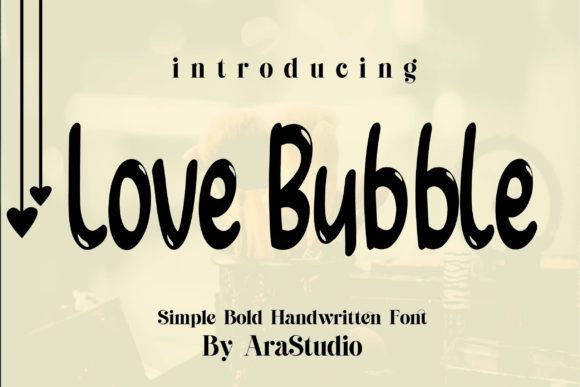
Journey into the Whimsical Realm of Love Bubble Font: A Script Symphony for Your Creative Expressions
In a realm where artistry dances with elegance, discover Love Bubble Font - a script font born from the union of charm and sophistication. This modern handwritten masterpiece is an enchanting creation by Alera, a design visionary whose passion for beauty shines through each meticulously crafted stroke.
Love Bubble Font is a captivating symphony of curves and flourishes, a visual melody that dances across your designs with grace and allure. Its playful personality is perfect for adding a touch of whimsy to wedding invitations, evoking the joyous spirit of a love celebrated. Let your words take flight on birthday cards, adorned with the charm of Love Bubble Font, carrying heartfelt messages that linger in the hearts of your loved ones.
Beyond special occasions, Love Bubble Font is a versatile chameleon, adapting effortlessly to the world of fashion magazines, where it lends its stylish flair to headlines and captivating articles. Logos and signatures adorned with Love Bubble Font exude an air of refinement, leaving an indelible mark of elegance and creativity.
Unleash your inner artist and let Love Bubble Font weave its magic into your watermark photography. Each captured moment, whether a breathtaking landscape or a tender portrait, deserves the exquisite touch of this font, transforming them into cherished keepsakes that transcend time.
With Love Bubble Font as your creative companion, the possibilities are as boundless as your imagination. Embrace its versatility and let your designs blossom into masterpieces that captivate and inspire. Join the growing community of creatives who have fallen under the spell of Love Bubble Font and embark on a journey of artistic expression like never before.